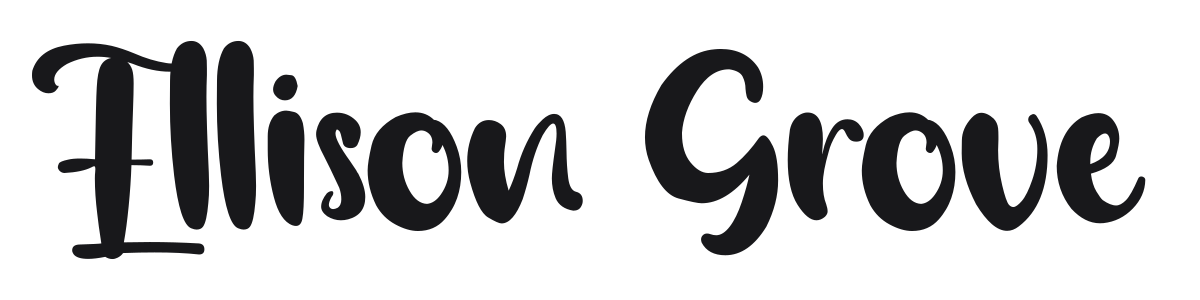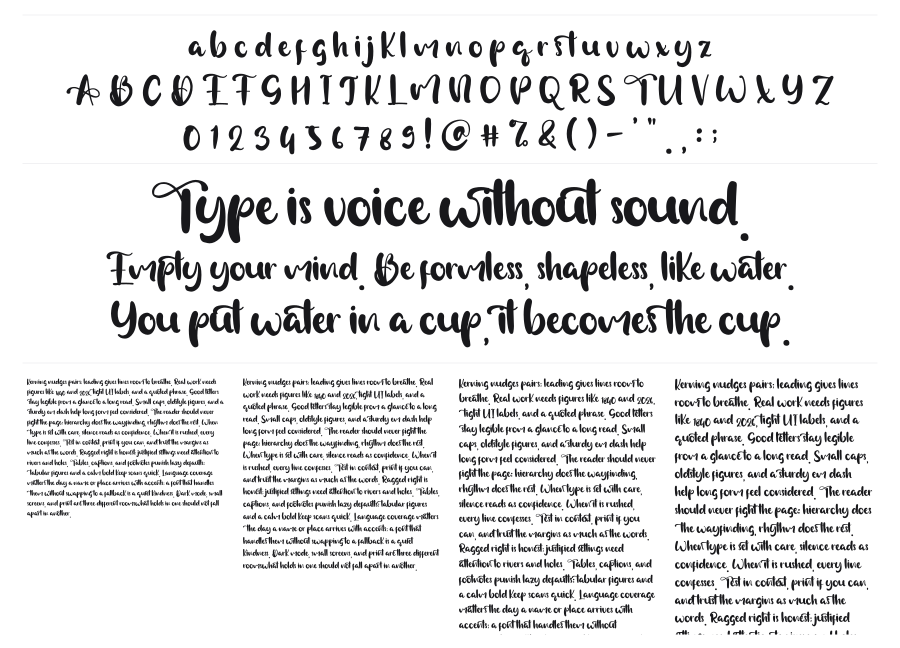
Ellison Grove
Ellison Grove is a bold casual brush script with thick, flowing strokes and a confident hand-painted energy. The letters connect naturally with expressive stroke contrast and rounded terminals that keep it feeling warm and approachable rather than rough. Strong choice for brand identities, packaging, and any headline that needs personality without shouting.